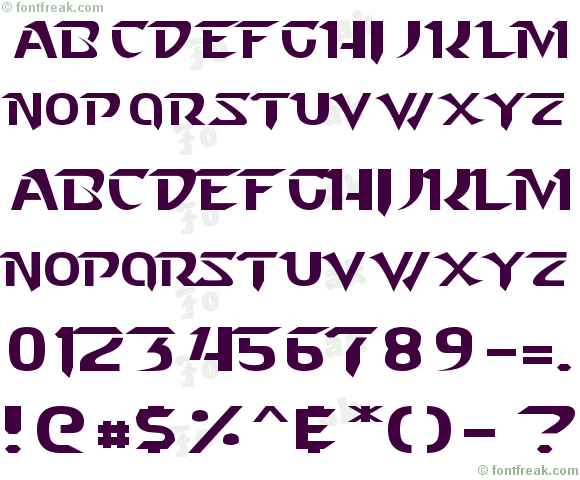
Starcraft
About Starcraft
The Starcraft font, designed by Neale Davidson in 2011, is a striking display typeface that captures attention with its bold and futuristic aesthetic. As a decorative font, it features sharp angles and geometric forms that evoke a sense of adventure and innovation. The stroke weight is consistently bold, providing a strong visual presence, while the contrast between the thick and thin lines enhances its dynamic appeal. The spacing is balanced, allowing for easy readability even in larger sizes, making it suitable for a variety of applications.
Ideal for use in video game-themed projects, movie posters, and promotional material for tech events, the Starcraft font can also shine in graphic design projects that aim to convey a sense of modernity and excitement. Small business owners in the gaming or technology sectors will find this font particularly appealing for branding, while content creators looking to inject some personality into their work can utilize it across various digital platforms, from websites to social media graphics.
What sets the Starcraft font apart is its ability to merge functionality with artistic flair. It stands out not just for its eye-catching design but also for its versatility across various contexts, making it a must-have for anyone looking to elevate their visual communication.